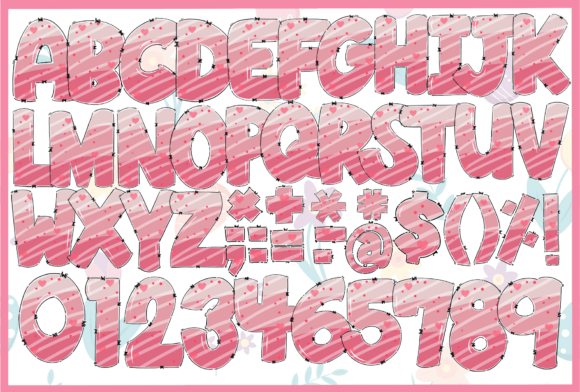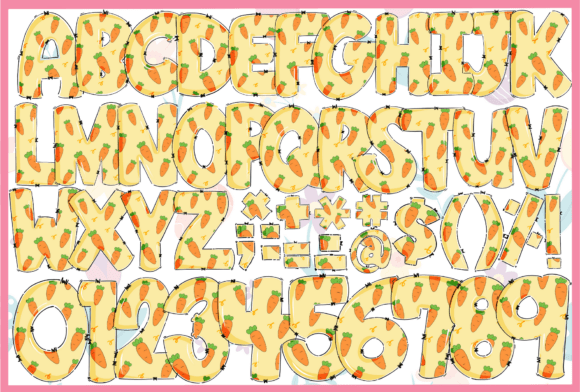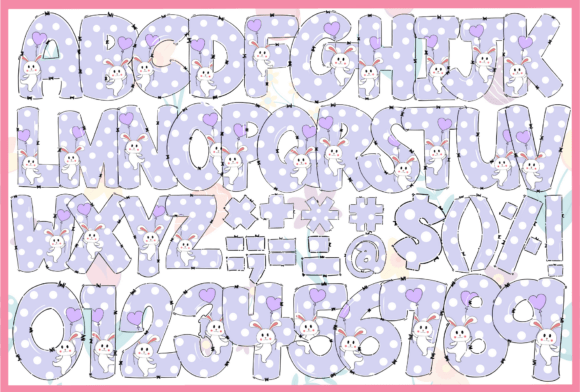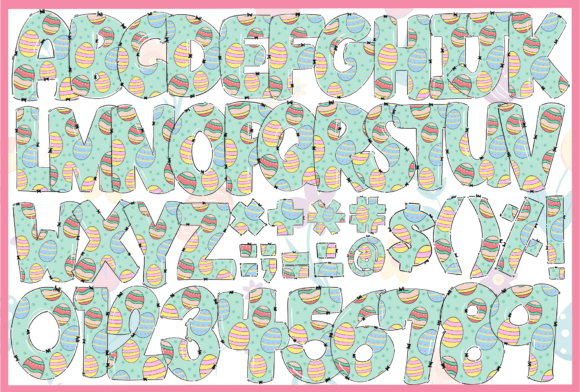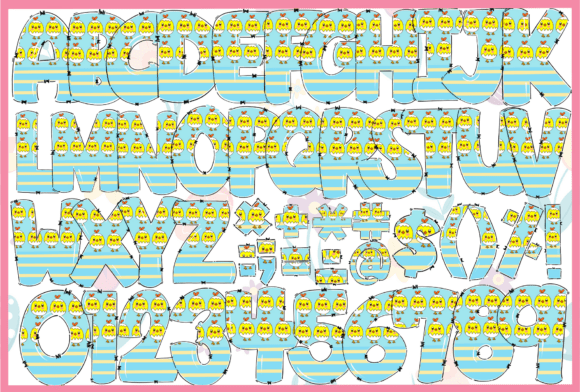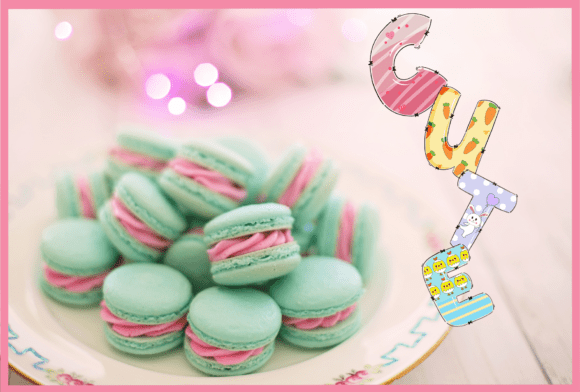
Easter Day Font: Add a Playful Touch to Your Designs
Easter Day is just around the corner, and what better way to celebrate than with a fun and festive font that captures the spirit of the season? Look no further than the Easter Day Font, a cute and colorful color font that’s perfect for adding a playful touch to your designs. In this article, we’ll take a closer look at this delightful font and explore how it can bring your designs to life.
What is Easter Day Font?
Easter Day Font is a chunky lettered font that’s designed to embody playfulness and authenticity. With its bold and colorful design, it’s the perfect choice for any children’s activity or school project. Whether you’re a designer, teacher, or parent, this font is sure to bring a smile to anyone’s face. Its unique and eye-catching design makes it stand out from other fonts, and its versatility ensures that it can be used in a wide range of projects.
Key Features of Easter Day Font
So, what makes Easter Day Font so special? Here are just a few of its key features:
- Playful Design: Easter Day Font is designed to be fun and playful, making it perfect for Easter-themed projects or any design that needs a touch of whimsy.
- Colorful: This font comes in a range of bright and bold colors, ensuring that your designs will stand out from the crowd.
- Chunky Lettering: The chunky lettering of Easter Day Font makes it easy to read and adds to its playful charm.
- Authentic: This font is designed to be authentic and genuine, making it perfect for use in children’s activities and school projects.
Uses for Easter Day Font
So, how can you use Easter Day Font in your designs? The possibilities are endless! Here are just a few ideas to get you started:
- Easter Cards and Invitations: Use Easter Day Font to create fun and festive Easter cards and invitations that are sure to delight.
- Children’s Activities: This font is perfect for use in children’s activities, such as coloring pages, worksheets, and puzzles.
- School Projects: Easter Day Font is a great choice for school projects, such as posters, presentations, and reports.
- Crafting Projects: Use this font to add a personal touch to your crafting projects, such as scrapbooking, DIY signs, and home decor.
Tips for Using Easter Day Font
Here are a few tips for getting the most out of Easter Day Font:
- Experiment with Colors: Don’t be afraid to experiment with different colors and color combinations to find the perfect look for your design.
- Mix and Match: Try mixing and matching Easter Day Font with other fonts to create a unique and eye-catching design.
- Keep it Simple: Don’t overcomplicate your design – sometimes, the simplest designs are the most effective.
Easter Day Font is a fun and festive font that’s perfect for adding a playful touch to your designs. With its bold and colorful design, chunky lettering, and authentic feel, it’s the perfect choice for any children’s activity or school project. Whether you’re a designer, teacher, or parent, this font is sure to bring a smile to anyone’s face. So why not give it a try and see how it can bring your designs to life?